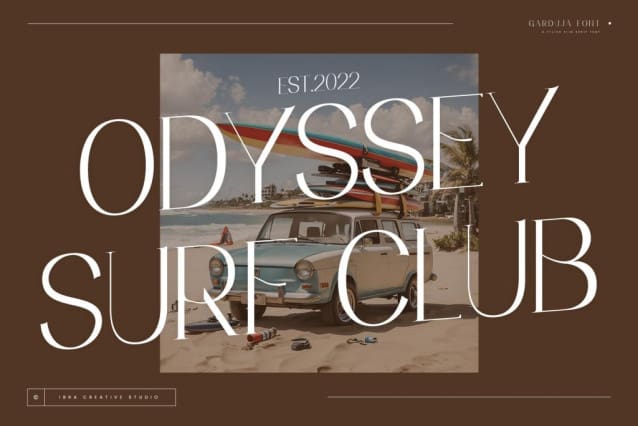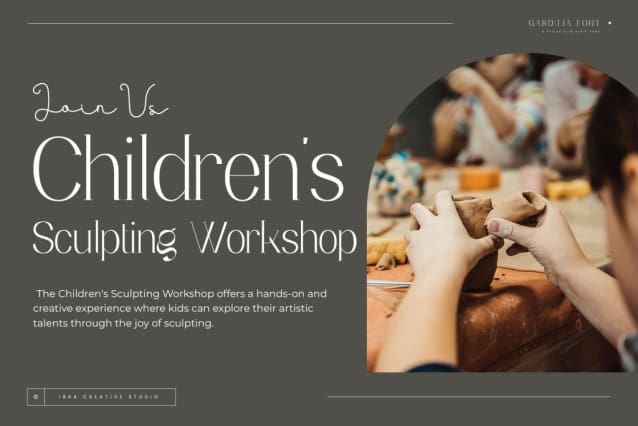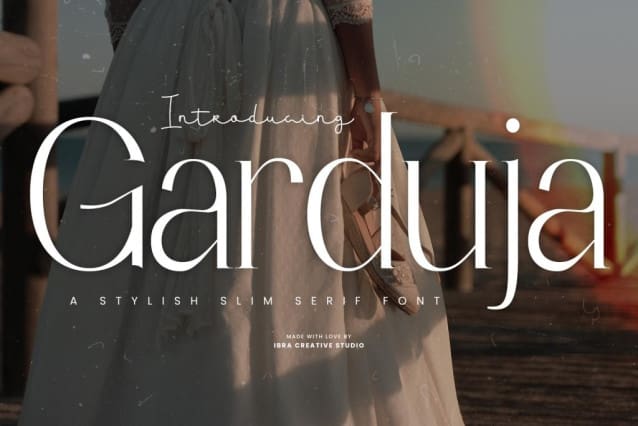
Garduja Font
Garduja Font is a stylish slim serif font, effortlessly blends sophistication with modern aesthetics, creating a typographic masterpiece that captivates the eye. Its slender and refined letterforms exude a timeless elegance, while subtle serifs add a touch of classic charm. Garduja strikes the perfect balance between readability and artistic flair, making it an ideal choice for projects that demand a polished and contemporary design.